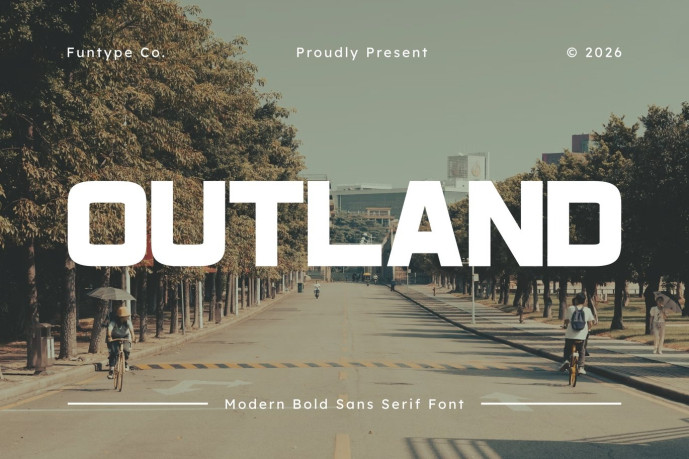
Outland – Modern Bold Sans Serif Font
Outland is a bold, and modern bold sans serif font, engineered to bring an authoritative structural presence, heavy block weight, and refined urban outdoor aesthetic to contemporary display layouts. Featuring a robust horizontal footprint, smooth rounded outer corners, and solid linear inner structures, Outland introduces a premium editorial, urban lifestyle, landscape photography, and prominent digital media identity designed to claim absolute visual focus.
This font family is the ultimate choice for creative directors, digital media publishers, and agency brand designers looking to implement a robust typography identity for major text hierarchies. Whether you are developing bold corporate enterprise logotypes, outdoor adventure magazine layouts, travel lifestyle branding, cinematic documentary title sequences, architectural firm headers, or prominent digital web banners, Outland stands out with supreme legibility and structural confidence.
Modern Bold Sans Structure: Optimized with a heavy block silhouette and solid footprint for high-impact title compositions.
Refined Urban Geometry: Bold block lines with smooth outer rounded details crafted to secure instant audience attention.
Versatile Outdoor Aesthetic: Clean linear strokes balanced with strong geometric contours, perfect for cutting-edge lifestyle brands and digital editorial networks.